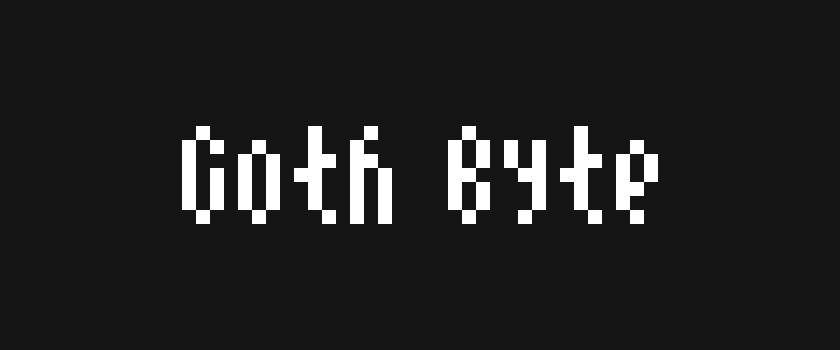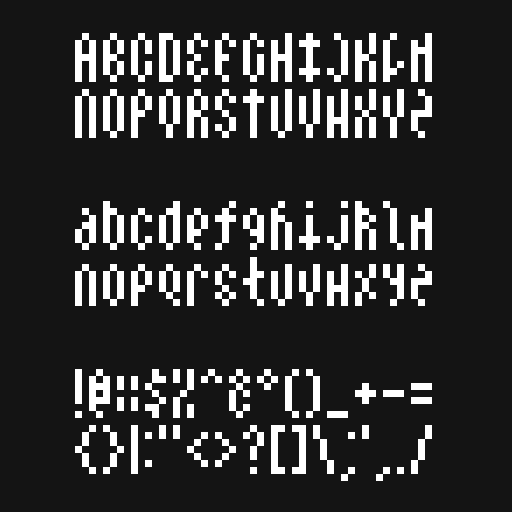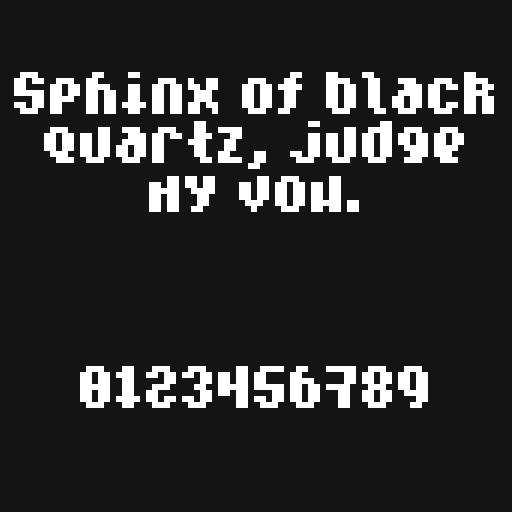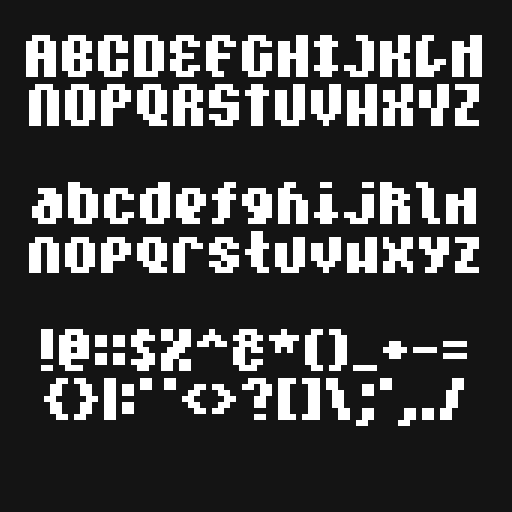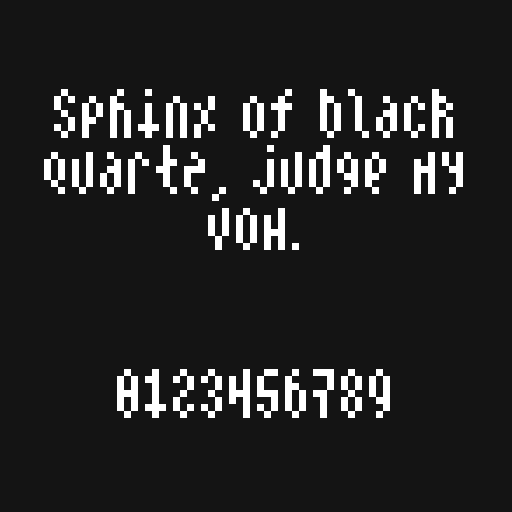
New Font Release - Goth Byte
Goth Byte Pixel Font!
Goth Byte comes in a nice small form factor at just 7 pixels tall while keeping it stylish but readable!
Designed to fit a medieval fantasy vibe, with a little hint of the dark arts
• Comes in Regular and Bold styles
• Lots of Language support - up to my new standard.
H: 7px | W: ~3px (variable)